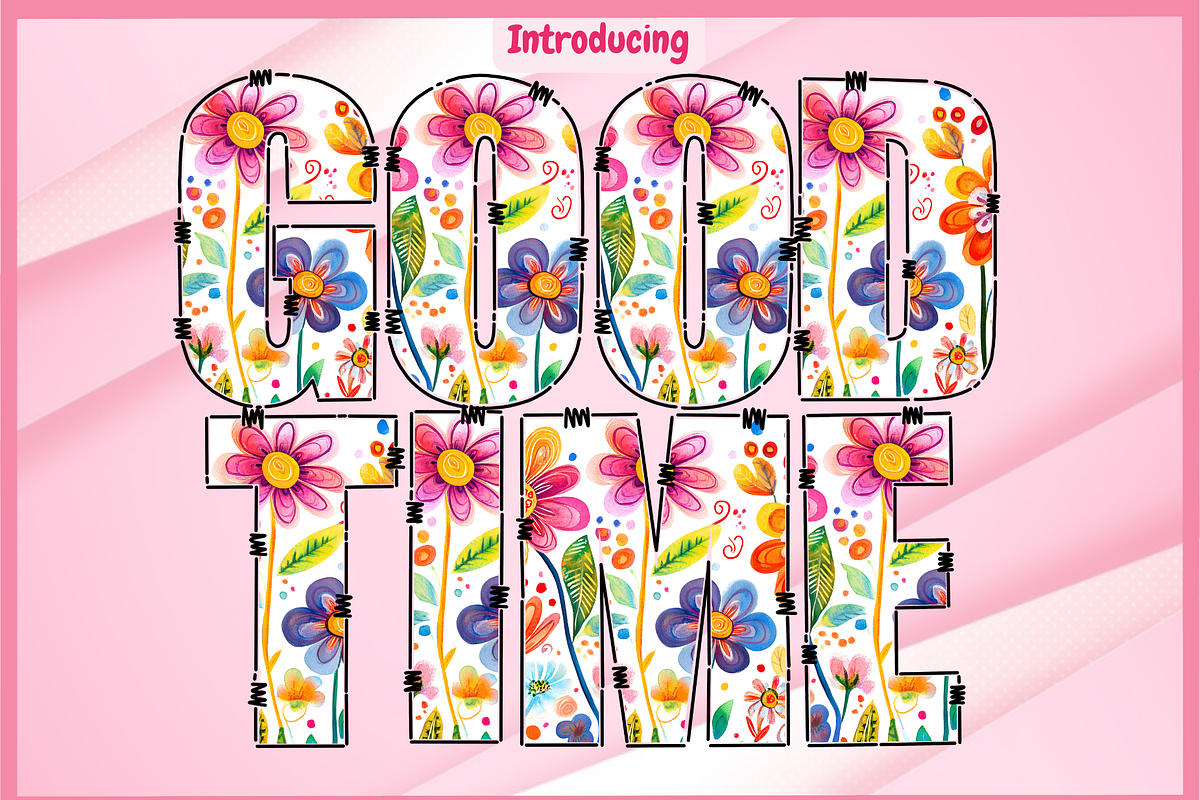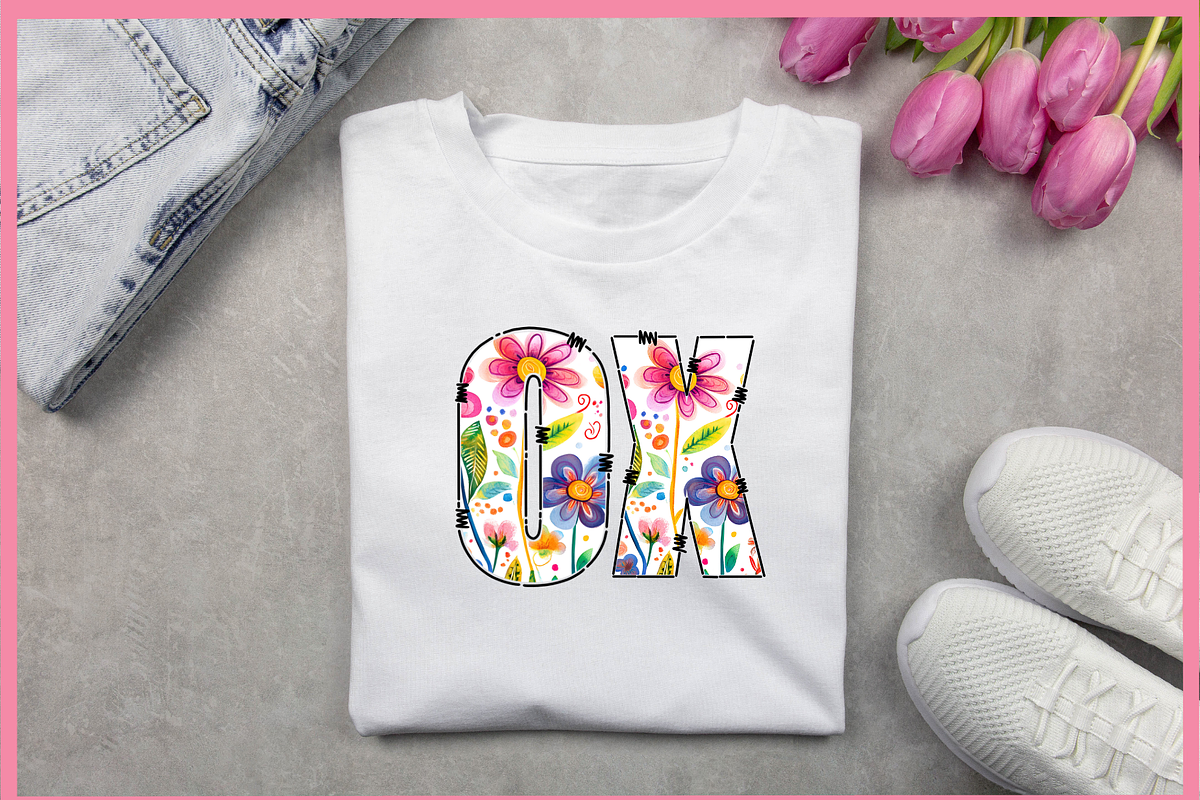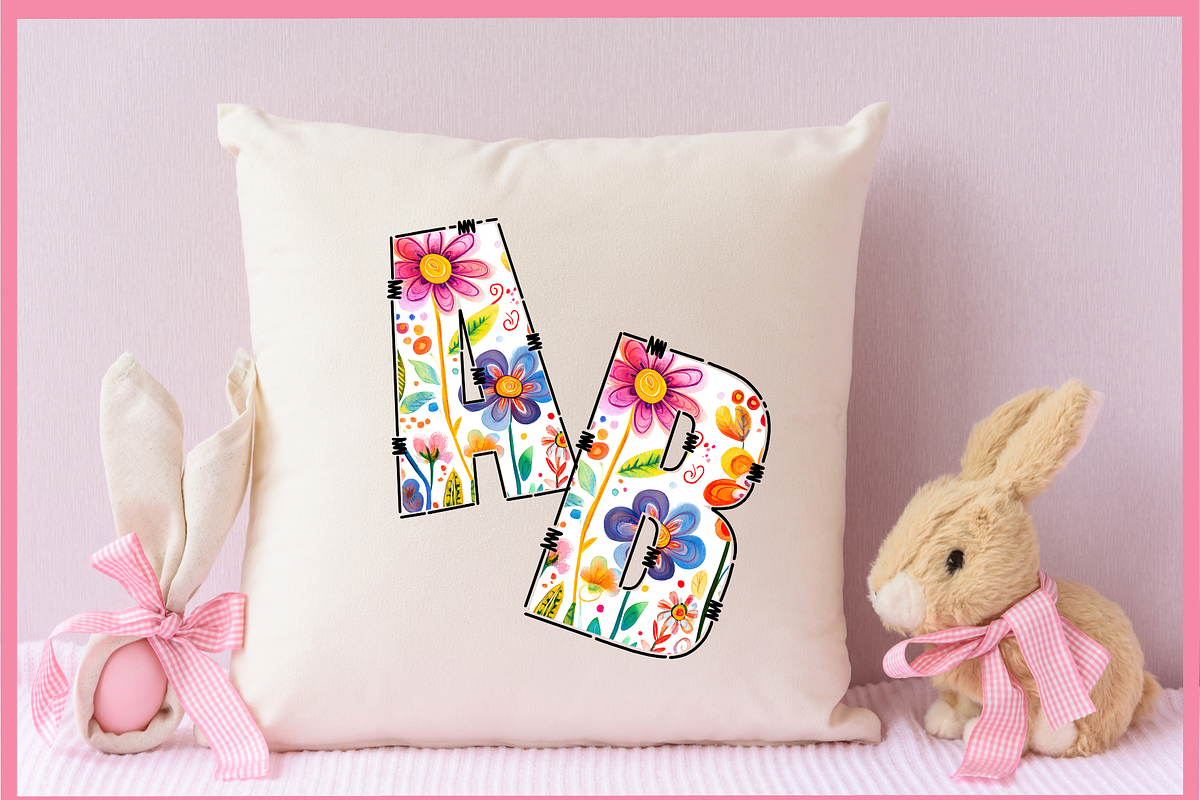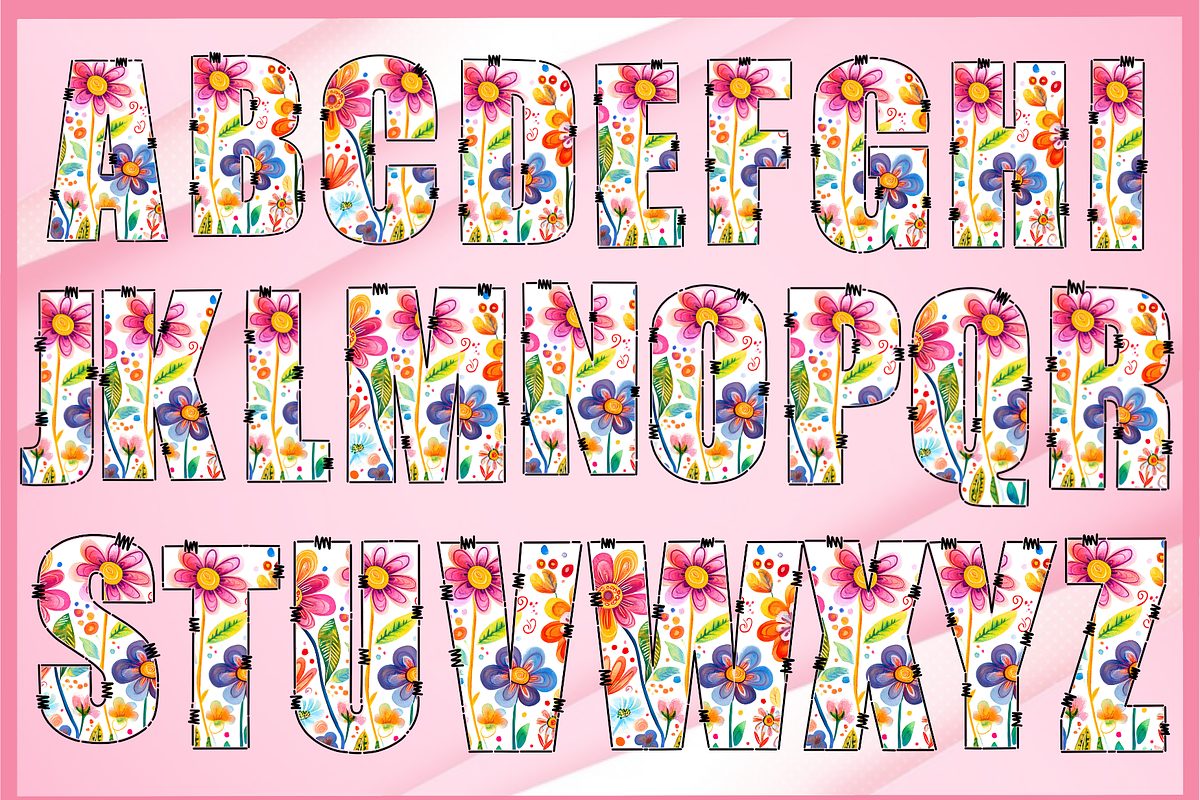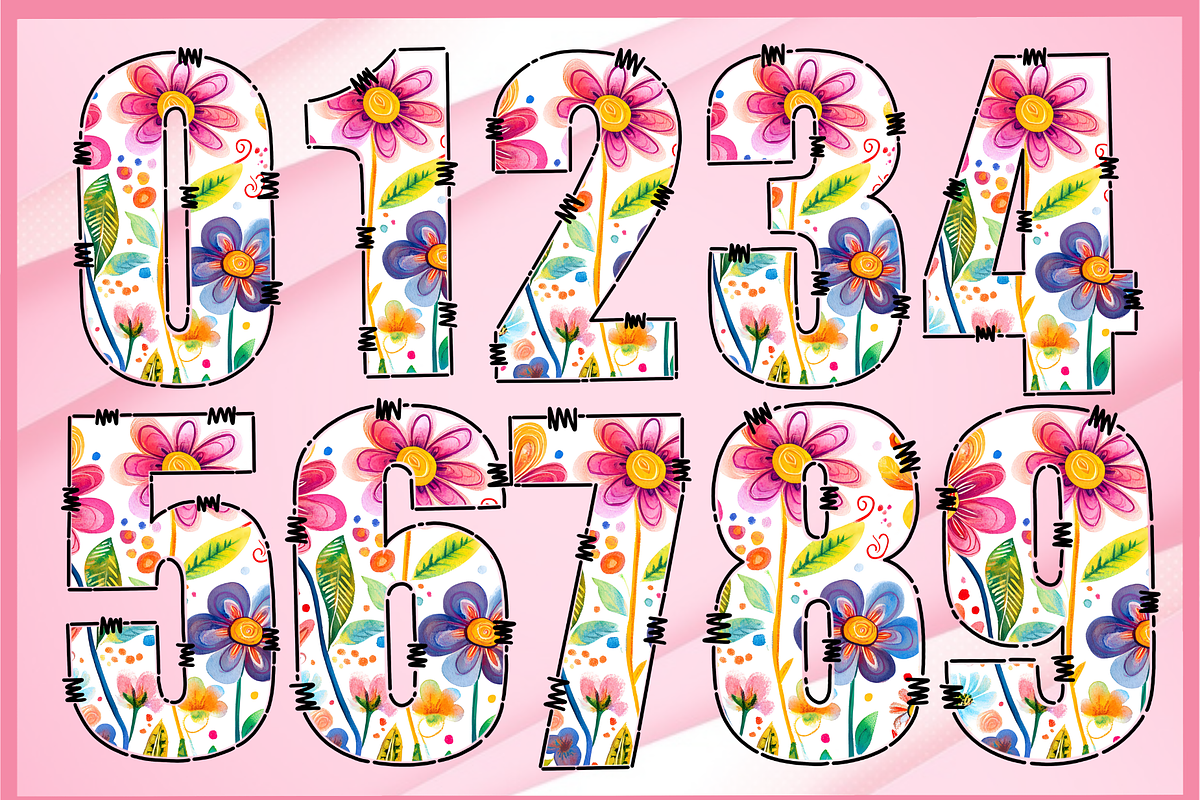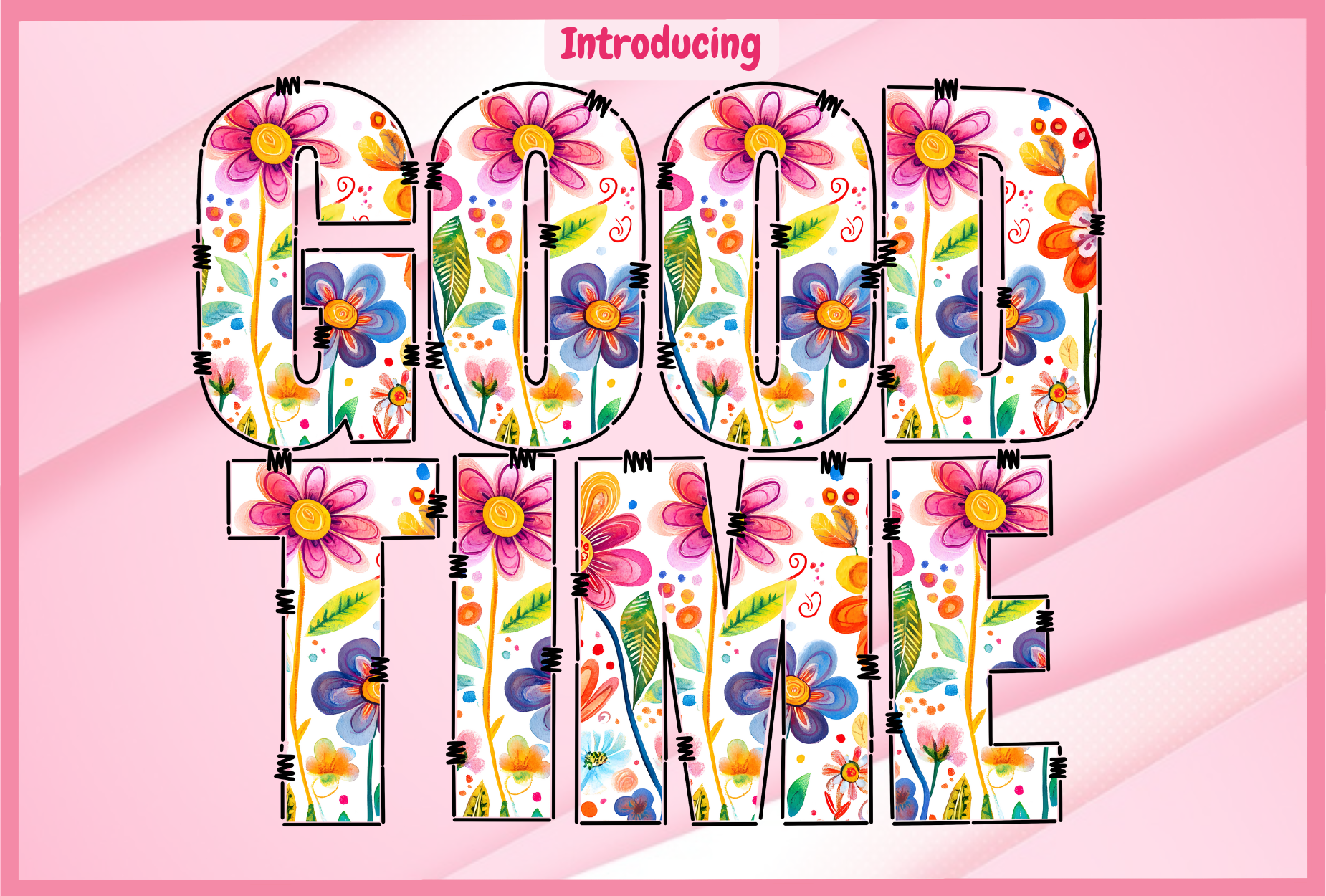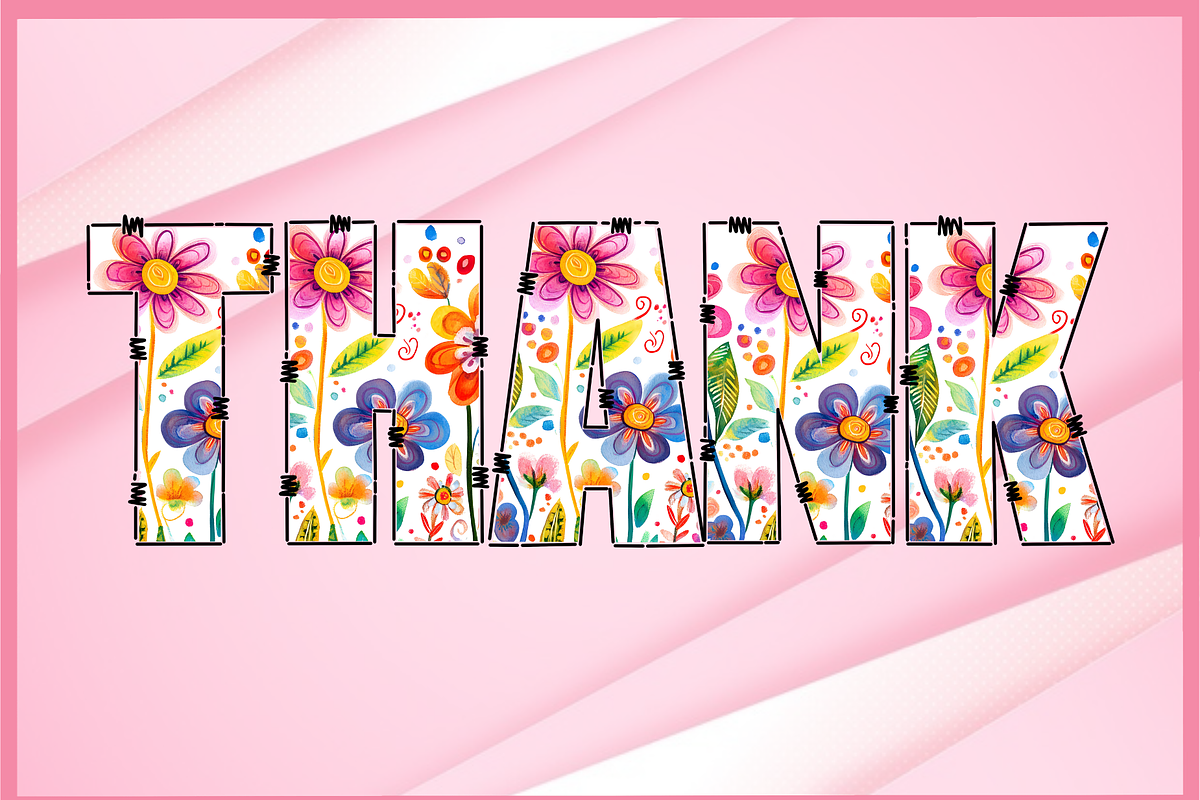
Good Time-PNG fonts
Good Time Font Good Time is a bold and cheerful decorative font filled with colorful floral patterns and outlined in playful sketch-style borders.